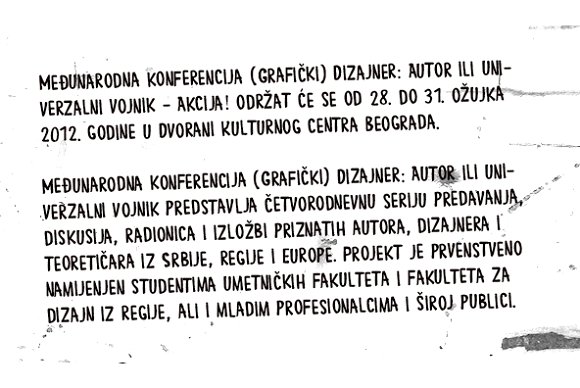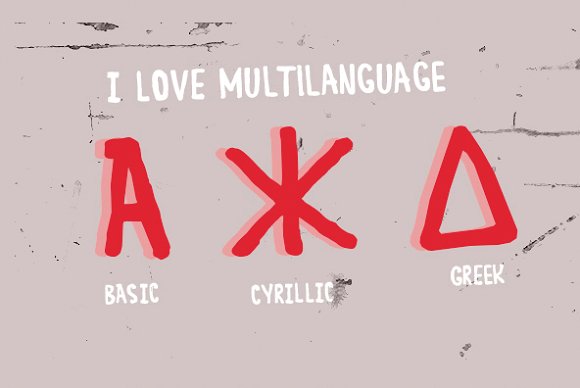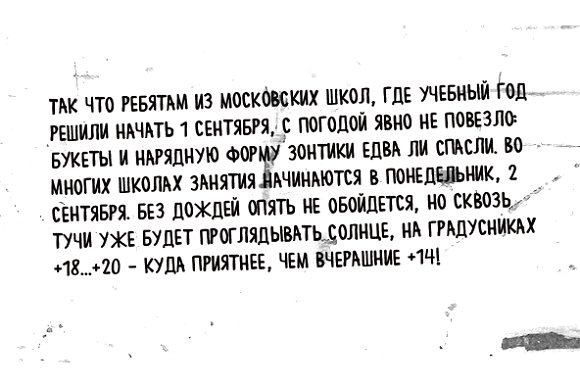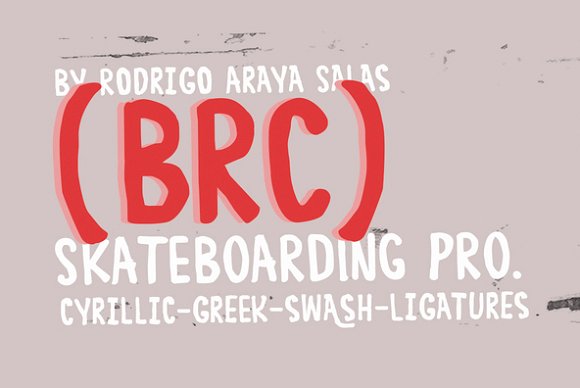
The BRC Font: A Playful, Distressed Design to Elevate Your Creations
I’ll never forget the design project that led me to discover the Barricada, or BRC, font. I was working on a branding project for a trendy coffee shop, and I needed a font that would capture their fun, edgy vibe. After hours of scrolling through font libraries, I stumbled upon BRC, and it was love at first sight! ✨ In this article, I’ll share my experience with this unique font, its features, and how to make the most of it in your designs.
An Honest Review of BRC Font
- ✨ Unique, playful, and distressed design that adds a touch of personality to any project
- ✅ Support for Greek and Cyrillic languages, making it a great choice for international clients
- ✅ OpenType features, including stylistic alternates and glyphs, for added creative control
- ✨ Highly legible, even at smaller font sizes
While BRC is an amazing font, it’s not perfect. Here are a few things to keep in mind:
- ⚠️ Some characters may appear a bit cramped or uneven, which can be adjusted with kerning and tracking
- 🤔 Limited suitability for body text or long-form content, due to its decorative nature
The Backstory of BRC Font
BRC font was created by Rodrigo Araya Salas, a talented type designer with a passion for creating unique and functional fonts. According to Salas, BRC was inspired by the urban landscapes and street art of his hometown. He aimed to capture the energy and playfulness of these environments in his design, resulting in a font that’s both decorative and legible.
| Font Name | BRC Font |
| Author | Rodrigo Typo |
Q: What language support does BRC font offer?
A: BRC font includes language support for Greek and Cyrillic, making it a great choice for international clients or projects.
Q: Is BRC font suitable for body text or long-form content?
A: While BRC is a beautiful font, it’s primarily designed for display or headline use. For body text or long-form content, consider a more traditional font with better legibility and readability.